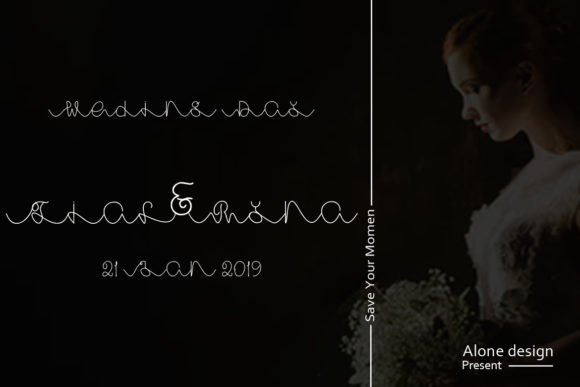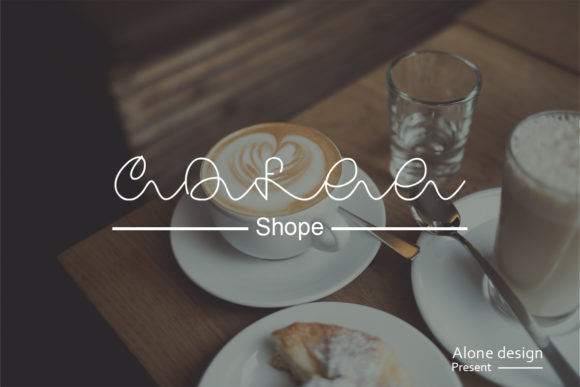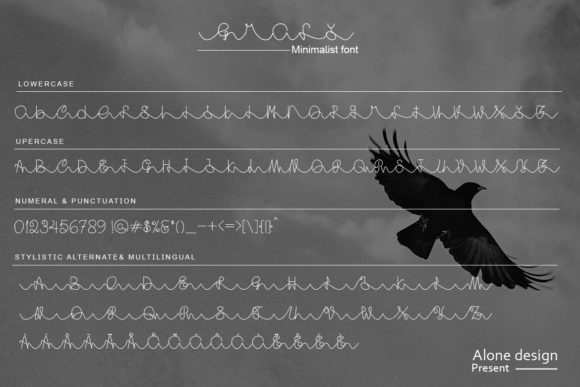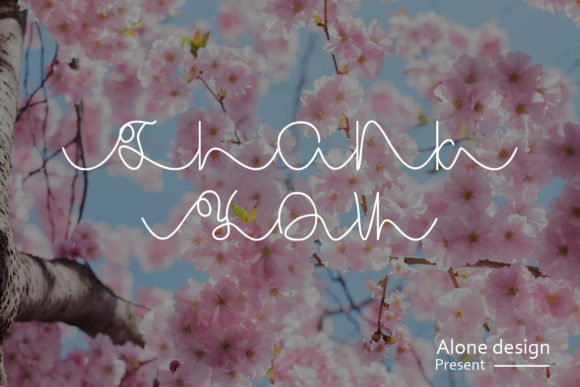
Introducing Grasy Font: The Perfect Addition to Your Design Projects
Are you tired of using the same old fonts in your design projects? Look no further than Grasy Font, a fresh and casual handwritten font that is sure to add an authentic layer to any design. With its smooth feel and effortless charm, Grasy Font is the perfect choice for designers and crafters looking to add a personal touch to their work.
What is Grasy Font?
Grasy Font is a modern handwritten font that is designed to bring a sense of warmth and personality to your designs. Its smooth, flowing lines and casual feel make it perfect for a wide range of projects, from branding and advertising to packaging and digital media. Whether you’re looking to create a bold statement or a subtle impression, Grasy Font is the perfect tool for the job.
Key Features of Grasy Font
• Fresh and Casual Design: Grasy Font has a unique and refreshing design that is sure to grab attention. Its casual feel makes it perfect for designs that require a personal touch.
• Smooth Feel: The font has a smooth, flowing quality that makes it easy to read and visually appealing.
• Authentic Layer: Grasy Font adds an authentic layer to any design project, making it perfect for designers and crafters looking to create unique and personalized designs.
• Versatile: Grasy Font can be used for a wide range of projects, from digital media to print materials.
Why Choose Grasy Font?
There are many reasons why Grasy Font stands out from the crowd. Here are just a few:
• Unique Design: Grasy Font has a unique design that is sure to make your designs stand out from the crowd.
• Easily Readable: The font is easy to read, making it perfect for body text and headlines.
• Highly Versatile: Grasy Font can be used for a wide range of projects, from digital media to print materials.
• Supports Multiple Languages: Grasy Font supports multiple languages, making it a great choice for designers and crafters working on international projects.
How to Use Grasy Font in Your Design Projects
Using Grasy Font in your design projects is easy. Here are a few tips to get you started:
• Pair it with Other Fonts: Grasy Font pairs well with other fonts, making it easy to create unique and visually appealing designs.
• Use it for Headlines and Body Text: Grasy Font is perfect for both headlines and body text, making it a versatile addition to any design project.
• Experiment with Colors and Textures: Grasy Font looks great in a variety of colors and textures, so don’t be afraid to experiment and find the perfect look for your design.
Grasy Font is a fresh and casual handwritten font that is sure to add an authentic layer to any design project. With its smooth feel and effortless charm, it’s the perfect choice for designers and crafters looking to add a personal touch to their work. Whether you’re working on a branding project, creating packaging, or designing digital media, Grasy Font is a great choice. So why wait? Download Grasy Font today and start creating unique and visually appealing designs that stand out from the crowd!